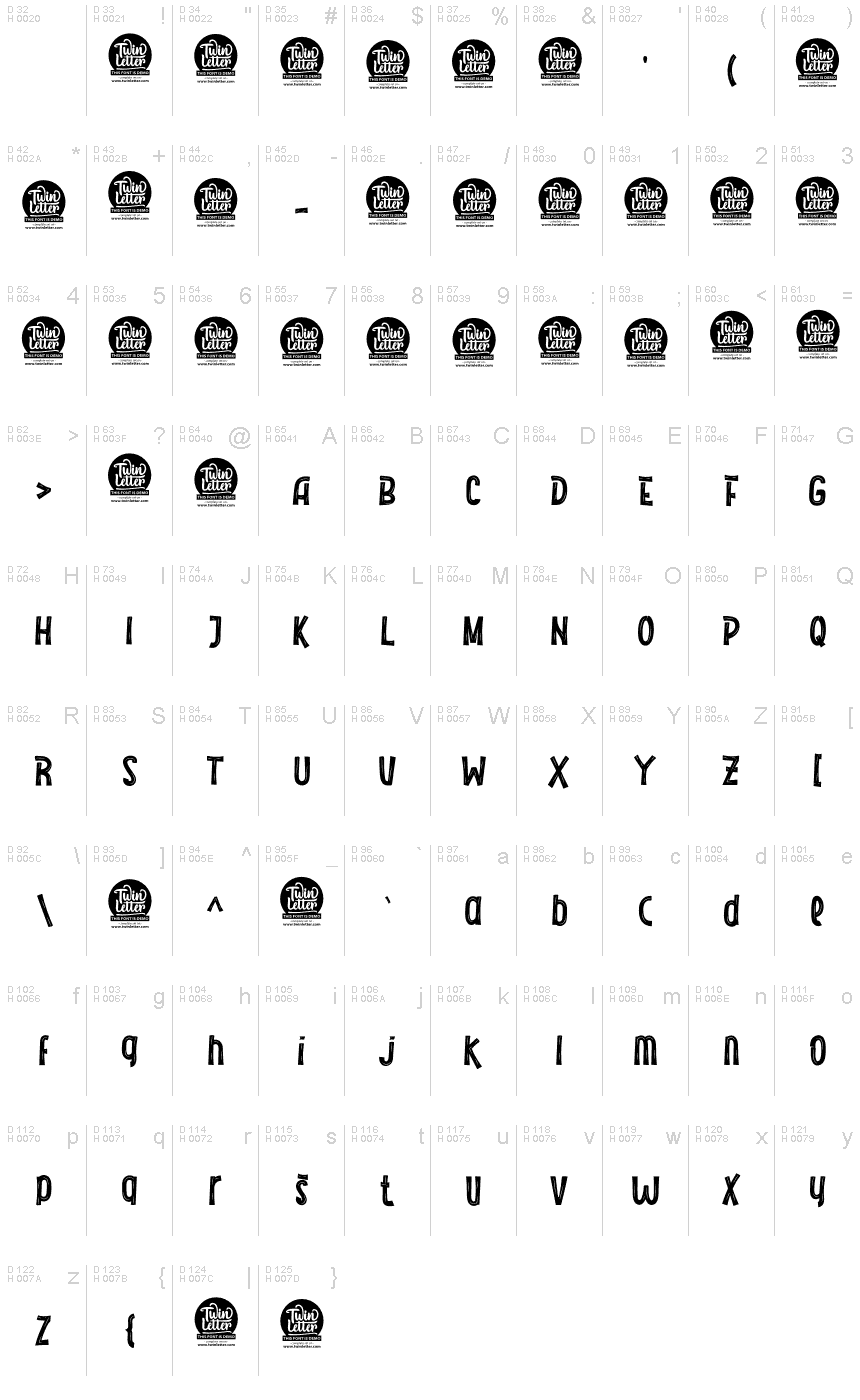
Backeth Personal Use
Backeth, the ultimate display font designed by rozi, brings a unique touch of eroded style to any project. With its condensed width, this font is perfect for creating striking headlines, titles or logos that demand attention. Its gritty texture and rough edges make it suitable for designs that require a vintage, weathered or distressed look. From music posters and book covers to packaging and branding materials, Backeth is versatile enough to elevate any creative project with an edgy yet sophisticated feel. Get ready to unleash your creativity with Backeth!